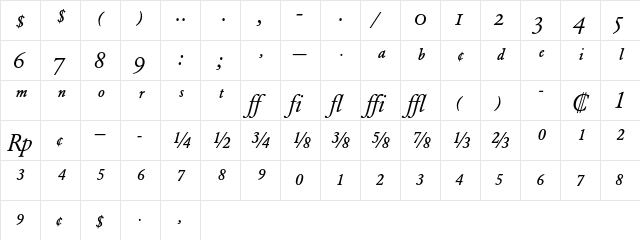
Garamond BE Italic Expert
Design Context for Garamond BE Typeface
Garamond BE is a composed and adaptable typeface that performs quietly and consistently across a wide range of design contexts. The dynamic lean of this cut emphasises speed and emphasis in any layout.
Pro Tip: Try Garamond BE for annotation and caption copy alongside an upright companion — the contrast in angle creates a dynamic but ordered typographic system.